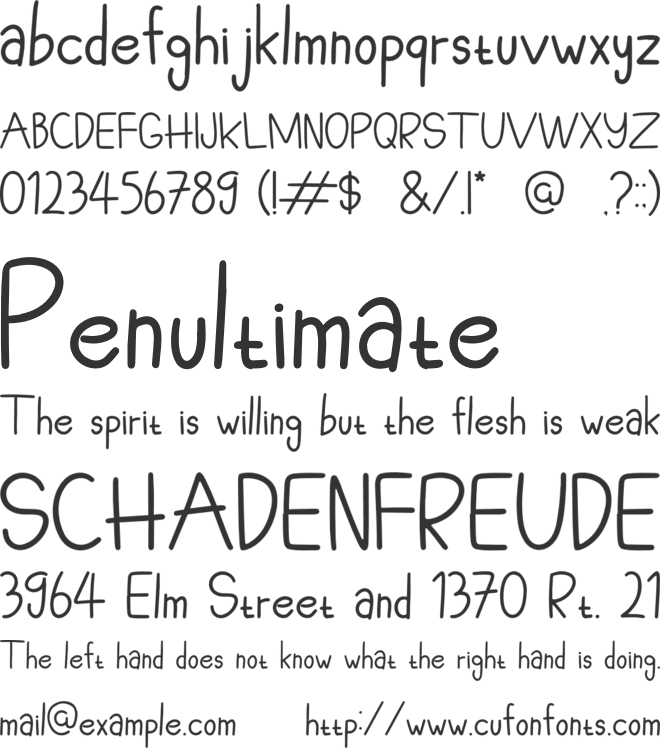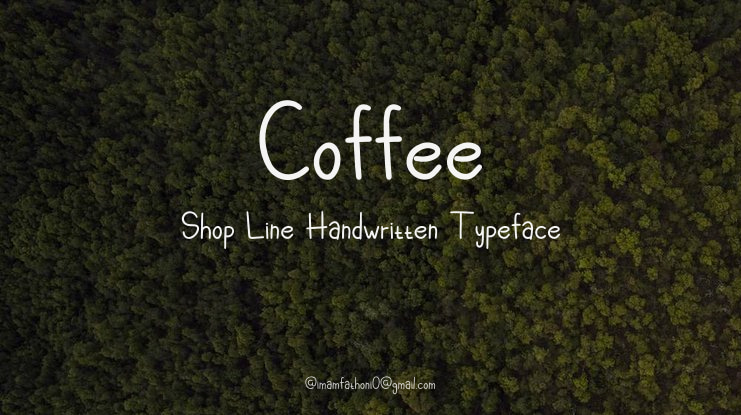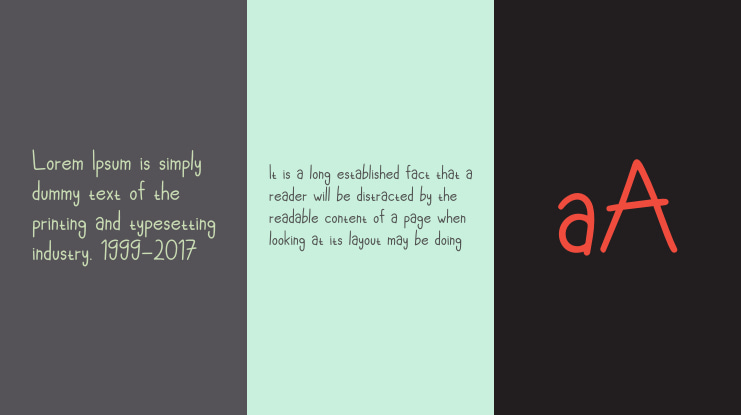
Coffee Shop Line Handwritten Font
Coffee Shop Line Handwritten is a relaxed thin-line script with an organic handwritten flow. Its loose, informal strokes and friendly rhythm bring a cozy, artisanal warmth to cafe menus, packaging, and quotes. The simple monoline letterforms feel personal and unhurried, like a hand-lettered chalkboard sign.